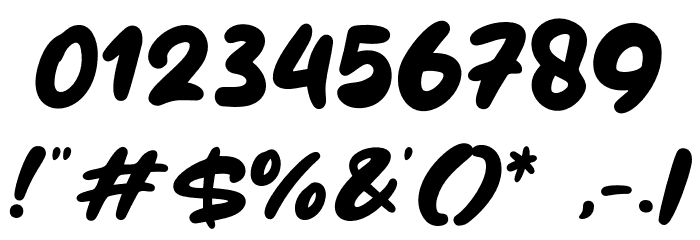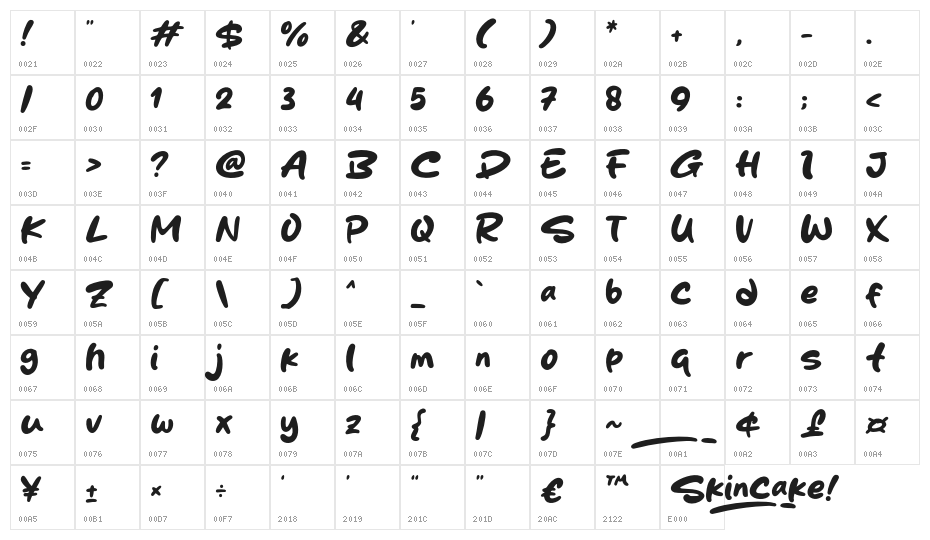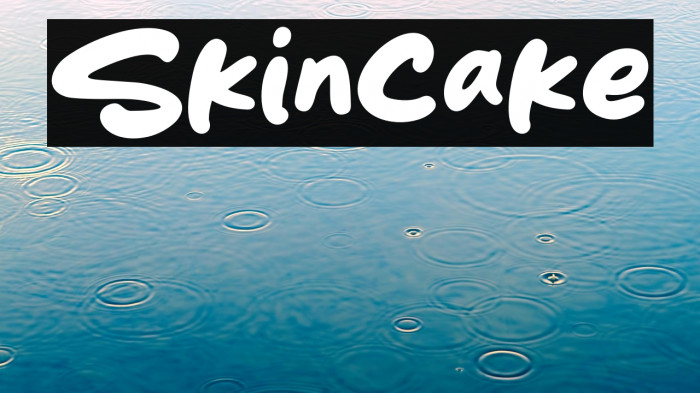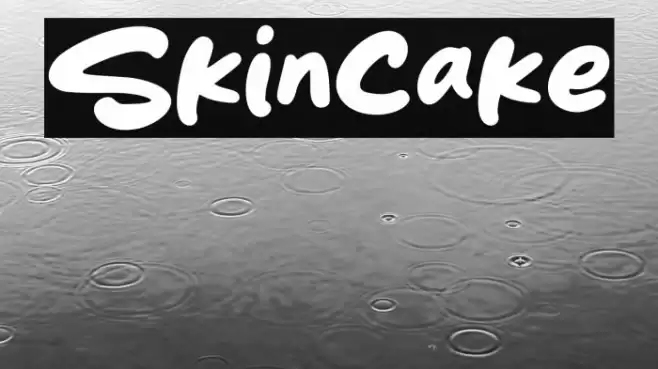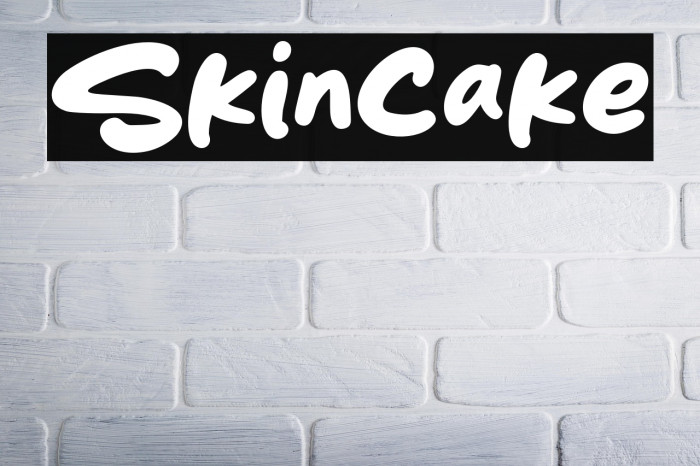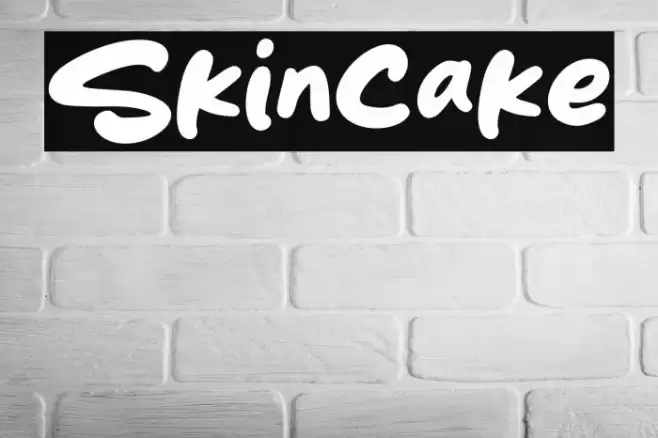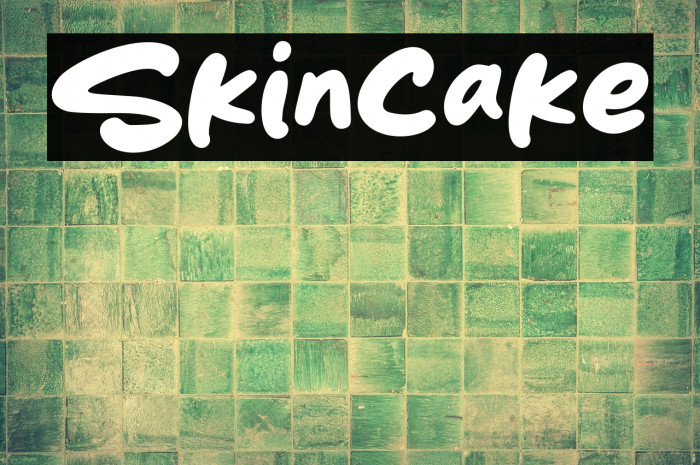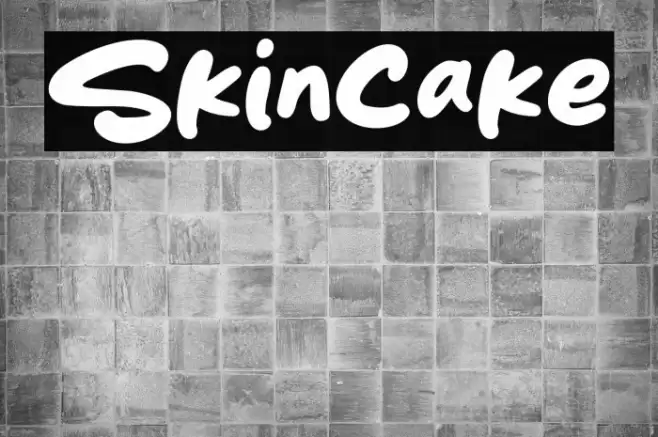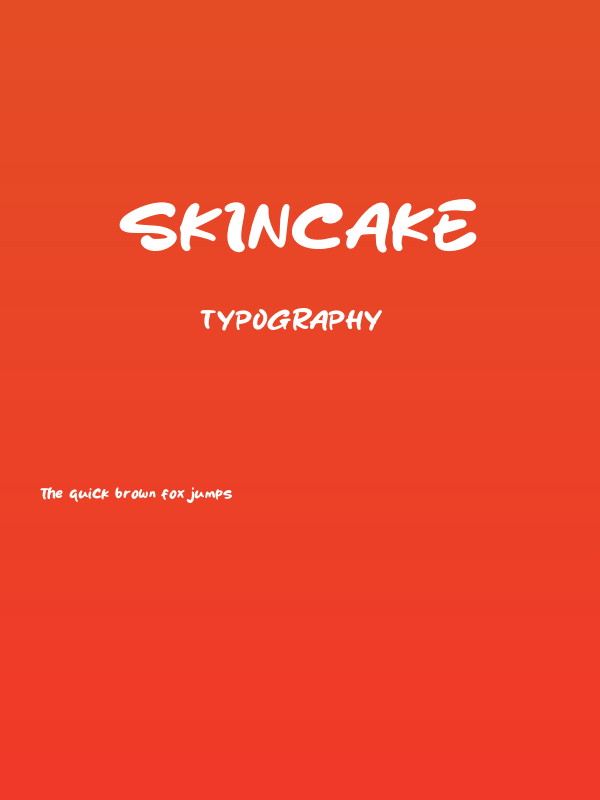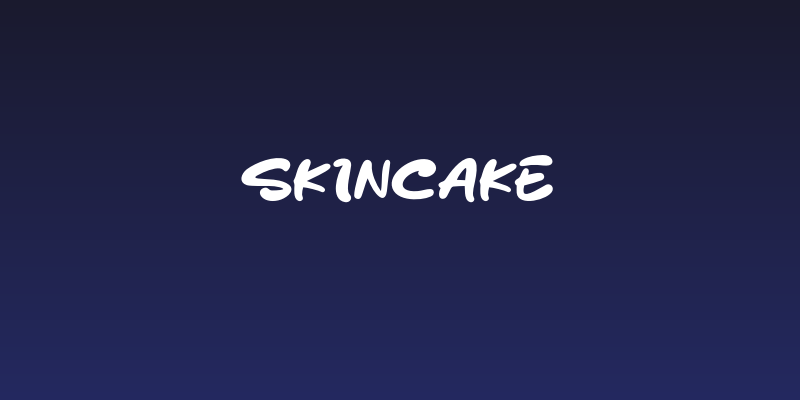
Skincake Font
Skincake Description
This font features a bold and playful handwritten style, characterized by its thick strokes and rounded edges. The letters are slightly slanted, giving a dynamic and energetic feel. The uppercase and lowercase letters maintain a consistent flow, while the numbers and special characters complement the overall design with their bold presence. The font's informal and friendly appearance makes it suitable for creative and casual projects. Its legibility is maintained despite the playful curves, making it versatile for various applications.
| Use Case | Headlines, Logos, Casual text |
| Proposed Projects | Ideal for children's books, playful branding, greeting cards, and casual social media graphics. |